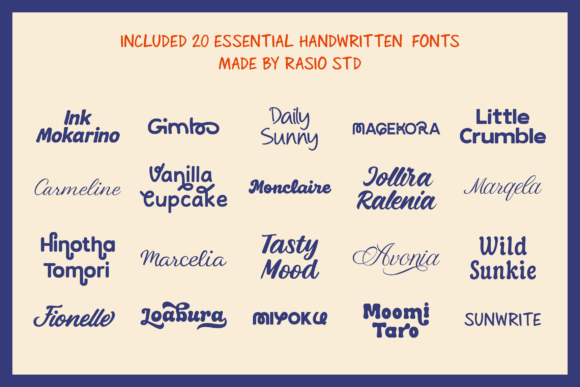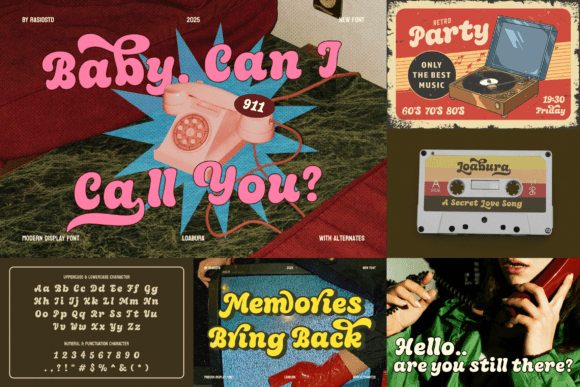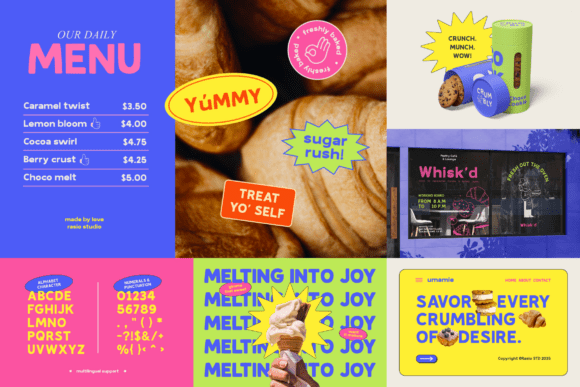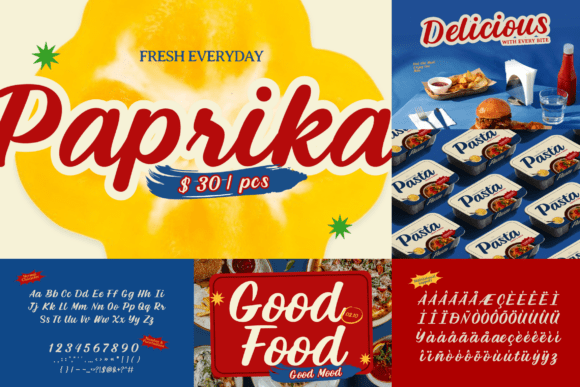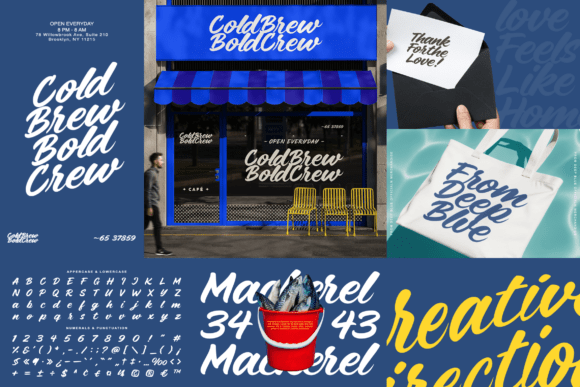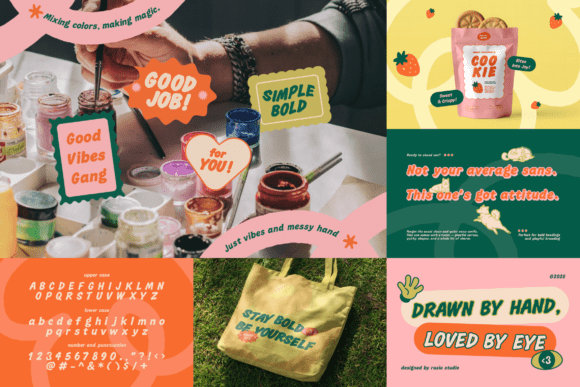
Unlock the Power of Personal Connection with the Essential Handwritten Font Bundle
Are you tired of using the same old generic fonts in your creative projects? Do you want to add a personal touch that resonates with your audience? Look no further than the Essential Handwritten Font Bundle, a curated collection of 20 unique handwritten fonts designed to bring a natural, hand-drawn feel to your designs.
A Collection of Fonts that Speak from the Heart
The Essential Handwritten Font Bundle is all about warmth, playfulness, and expressiveness. Each font in the collection has been carefully crafted to convey a friendly and organic character, perfect for designs that need a personal, cheerful, and human touch. Whether you’re working on branding, packaging, social media, posters, stickers, product labels, or digital artwork, this font bundle has got you covered.
20 Unique Fonts to Suit Every Need
So, what can you expect from the Essential Handwritten Font Bundle? This comprehensive collection includes:
- Playful display fonts to grab attention and make a statement
- Casual lettering fonts for a relaxed, laid-back vibe
- Sweet script fonts to add a touch of elegance and sophistication
- Bold hand-drawn typography to make your message stand out
With such a wide range of styles to choose from, you’re sure to find the perfect font to match your brand’s personality and tone.
The Essential Handwritten Font Bundle is a dream come true for designers and crafters who want to add a personal touch to their work. Whether you’re creating:
- Packaging designs that pop
- Social media graphics that engage
- Posters and flyers that promote
- Stickers and labels that stick
- Digital artwork that inspires
this font bundle has the perfect font to help you achieve your creative vision.
Industries that Benefit from the Essential Handwritten Font Bundle
While the Essential Handwritten Font Bundle can be used across various industries, some sectors particularly benefit from its warm and playful style. These include:
- Food brands and bakeries looking for a friendly, approachable vibe
- Children’s projects and educational materials that require a fun and engaging tone
- Lifestyle content and blogs that want to convey a sense of warmth and personality
- Handmade businesses and crafters seeking to emphasize their unique, human touch
- Creative visual designs and artistic projects that demand a bold and expressive style
Why Choose the Essential Handwritten Font Bundle?
So, why should you choose the Essential Handwritten Font Bundle over other font collections? Here are just a few compelling reasons:
- Unique and versatile: With 20 unique fonts, you’ll have plenty of options to choose from, ensuring your designs always stand out.
| Font Name | Essential Handwritten Bundle Font |
| Author | product.rasiostudio |
The Essential Handwritten Font Bundle is an indispensable resource for designers and crafters looking to add a personal touch to their creative projects. With its collection of 20 unique handwritten fonts, this bundle offers a world of possibilities for bringing warmth, playfulness, and expressiveness to your designs. Whether you’re working on branding, packaging, social media, or digital artwork, this font bundle is sure to become a go-to resource in your creative toolkit.